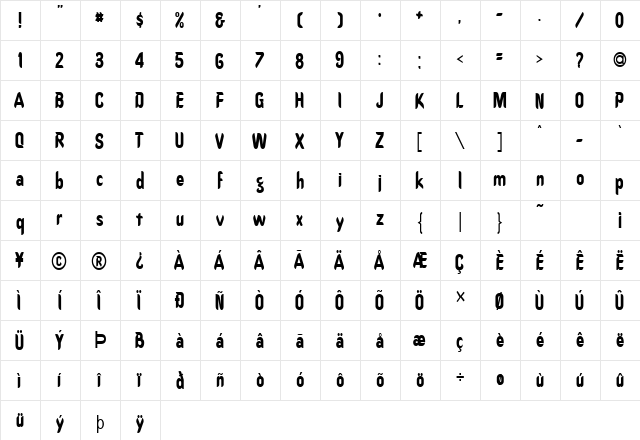
CallimarkerCondensed Normal
Design Context for CallimarkerCondensed Typeface
CallimarkerCondensed takes a measured approach to typography — its balanced proportions and neutral character make it a reliable workhorse for both digital and print work. Its narrow stance lets it pack a punch even in space-constrained designs.